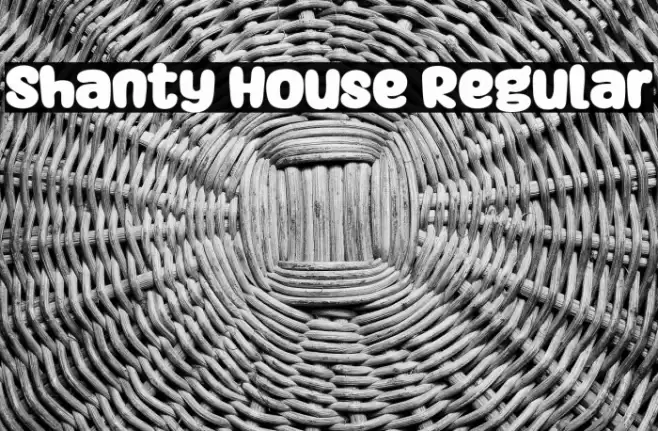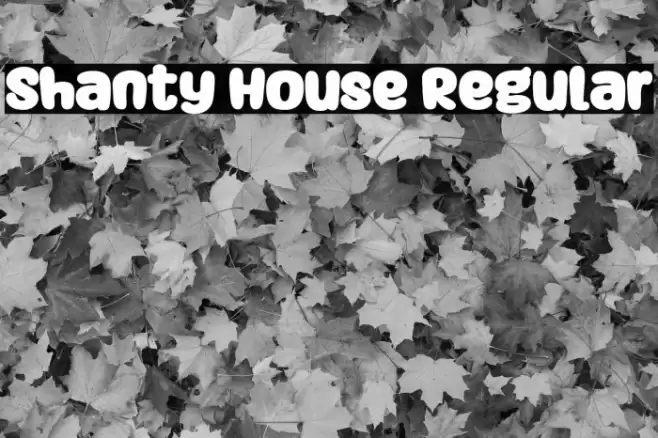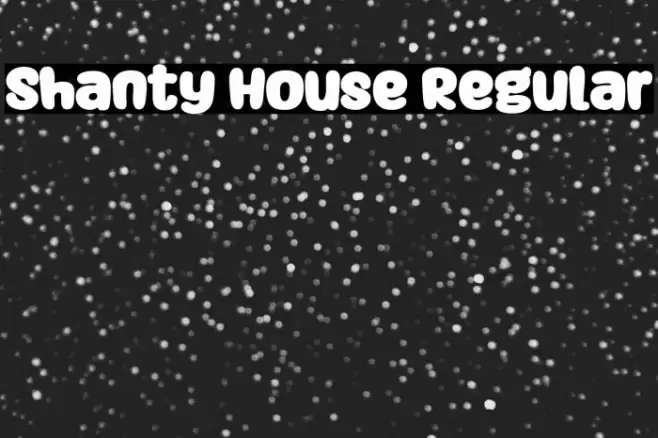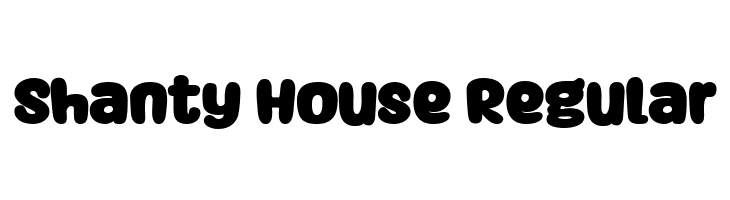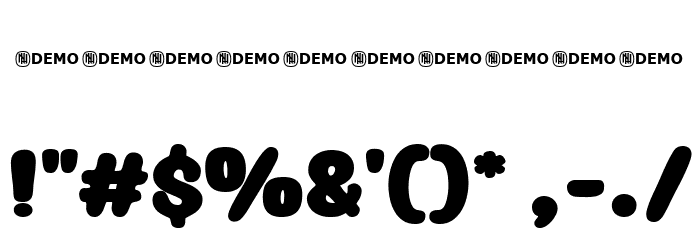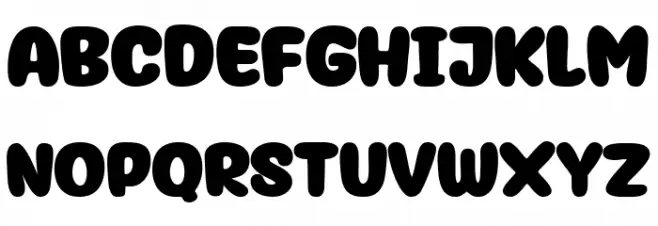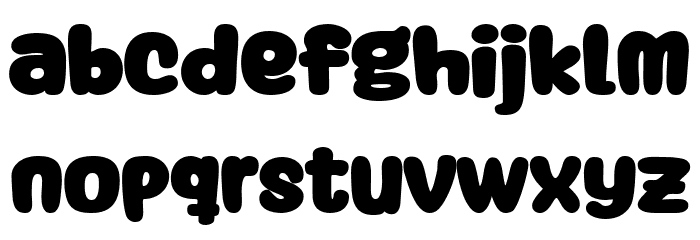
Shanty House Regular Font
Shanty House Regular Description
This font features a bold and playful design with rounded, bubbly characters that convey a sense of fun and whimsy. The letters are thick and have a consistent stroke width, giving them a strong presence on the page. The rounded edges and lack of sharp angles contribute to a friendly and approachable aesthetic. This style is reminiscent of retro or vintage designs, often used in contexts that require a touch of nostalgia or playfulness. The font maintains a uniform appearance across both uppercase and lowercase letters, as well as numbers and special characters, ensuring versatility in various design applications.
A bold, playful font with rounded, bubbly characters and a retro vibe from Uncategorized fonts.
- Proposed Projects: Ideal for children's books, playful branding, retro-themed posters, and casual invitations.
- Overall Style: Playful, Retro
- Use Case: Logos, Posters, Headlines